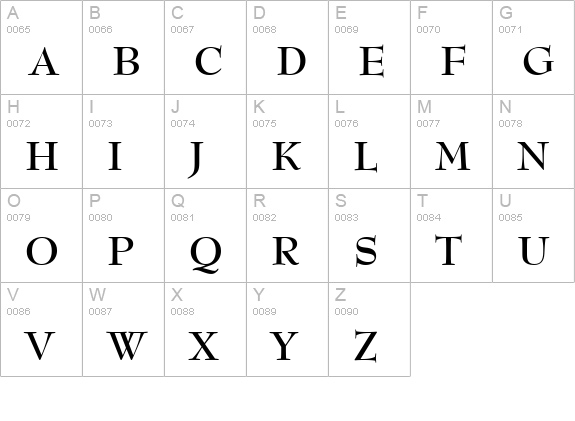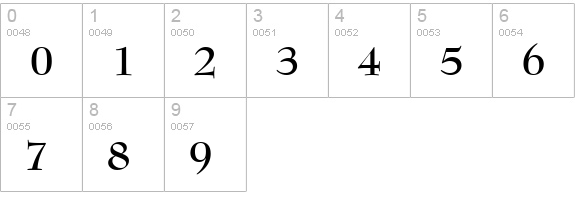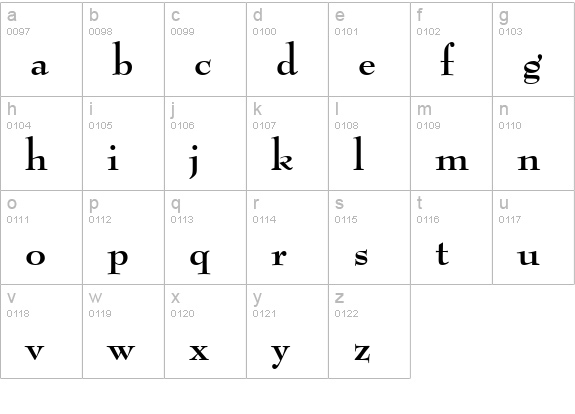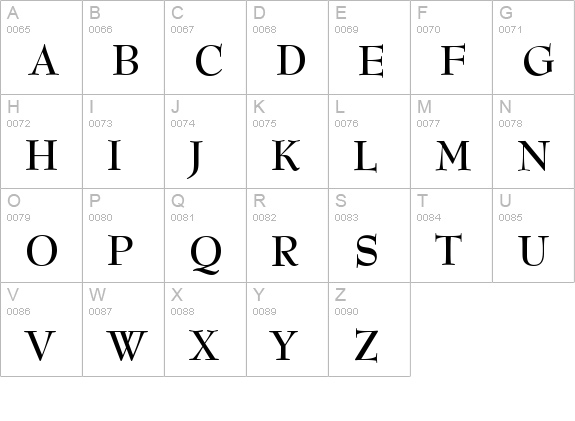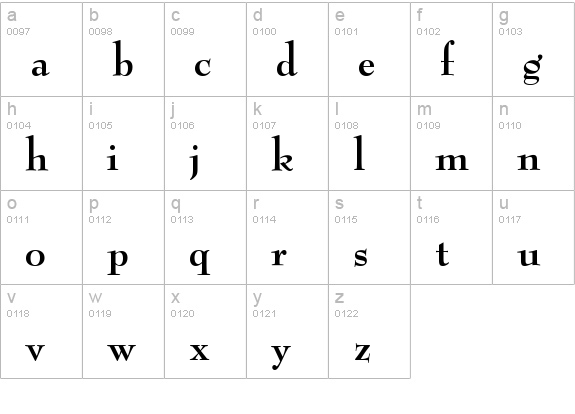
Monitor SSi Bold is a strong, high-contrast variant in the Monitor typeface family \xE2\x80\x94 well suited to headlines, attention-grabbing titles, and strong calls-to-action.